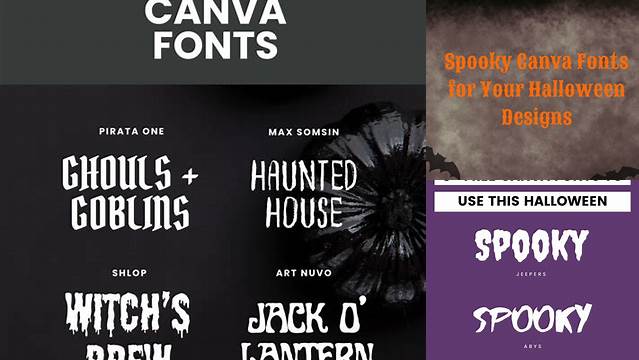
Canva's Spooky Fonts For A Hauntingly Good Design
Hey design enthusiasts! Ever wanted to give your projects that extra creepy, chilling, or downright terrifying vibe? Whether you're crafting Halloween invitations, designing spooky social media graphics, or just looking to add a touch of the macabre to your portfolio, finding the right fonts is key. And when it comes to easy-to-use design tools, Canva is a total game-changer. But can you really find scary looking fonts in Canva that will make your designs pop with fright? Absolutely! Let's dive into the ghoulishly good world of Canva's font library and uncover the perfect creepy typefaces to send shivers down your audience's spine.
Discovering the Eeriest Fonts in Canva's Library
So, you're on the hunt for those perfect, spine-chilling fonts within Canva. It's not always as straightforward as typing "scary" into the search bar, but trust me, the treasure trove is there if you know where to look. Canva has a massive font collection, and while many are standard and professional, there's a whole underbelly of fonts just waiting to be unleashed for your spooky creations. Think jagged edges, dripping ink effects, distorted characters, and unnaturally thin or bulbous forms. When you're browsing, keep an eye out for keywords that hint at the macabre, like "gothic," "horror," "distressed," "grunge," "handwritten" (especially if it looks shaky or uneven), or even specific holiday terms like "Halloween." Sometimes, a font that doesn't scream "scary" on its own can become terrifying with the right color palette, effects, and context. Don't be afraid to experiment! What might look playful at first glance could become sinister when placed on a dark, textured background with a subtle glow effect. The beauty of Canva is its accessibility; you can try out countless fonts without commitment. So, grab a coffee (or maybe a potion?) and start exploring. You'll be surprised at the sheer variety of scary looking fonts in Canva that can elevate your design from mundane to monstrous.
Unveiling "Creepy" Font Styles for Halloween Designs
When Halloween rolls around, or when you're aiming for that gothic aesthetic, the font choice becomes paramount. You want something that whispers tales of haunted mansions, lurking shadows, and ancient curses. Within Canva, there's a fantastic selection of fonts that perfectly embody this creepy essence. Look for styles that mimic old, weathered paper or the scratchy handwriting of a madman. Fonts with sharp, elongated serifs can give a sense of unease, as can those that appear broken or fragmented, as if they've survived a terrible ordeal. Think about the classic horror movie posters β they often utilize fonts that are bold, slightly off-kilter, and convey a sense of dread. Some fonts in Canva might have a "distressed" look, with textures that suggest age and decay, which is perfect for a vintage horror feel. Others might be more stylized, with exaggerated loops and swirls that can look elegant yet sinister, like a venomous serpent. Don't forget the power of a good "gothic" font; these often have a strong, dramatic flair that can be both sophisticated and spooky. When you're designing for Halloween, guys, you're not just choosing letters; you're choosing the voice of your terror. A well-selected creepy font can instantly set the mood, making your audience feel the fright before they even read the words. So, delve into Canva's vast library, try out those "gothic" and "distressed" options, and find the perfect voice for your next haunted masterpiece. Remember, the goal is to evoke emotion, and a great scary font is your most potent tool for doing just that. Itβs all about finding those scary looking fonts in Canva that speak to the darker side of design.
Exploring the Darker Side: Gothic and Horror Typefaces
Let's get real, sometimes you need more than just a little bit spooky; you need full-blown horror vibes. Canva actually has a decent selection of fonts that lean heavily into the gothic and horror genres, and they're perfect for making a statement. These aren't your everyday fonts; they're designed to be dramatic, unsettling, and memorable. Think about fonts that have a very strong, almost aggressive presence. They might be heavily stylized, with sharp angles, dramatic curves, or even elements that look like they're dripping or bleeding. Gothic fonts, in particular, often have a historical feel, reminiscent of ancient manuscripts or medieval architecture, which can lend a sense of timeless dread. When paired with the right imagery and colors, these fonts can transform a simple design into something truly menacing. For instance, a bold, blackletter-style gothic font against a blood-red background? Chef's kiss for horror! On the other hand, some horror fonts in Canva are more modern and abstract, playing with distortion and asymmetry to create a sense of unease. They might look warped, stretched, or fragmented, mimicking the visual chaos often associated with psychological horror. The key here is to embrace the dramatic. Don't shy away from fonts that are bold, unconventional, or even a little bit difficult to read at first glance β that can actually add to the creepy effect! When you're selecting these fonts, consider the overall mood you want to convey. Are you going for a classic haunted house feel, a slasher film vibe, or something more ethereal and ghostly? Canva's variety of scary looking fonts in Canva means you can find a typeface that perfectly matches your specific brand of terror. So, go ahead and explore those darker corners of the font library; you might just find the font that makes your design scream.
Finding Fonts with a "Distressed" or "Grunge" Aesthetic
Alright, guys, let's talk about texture, because sometimes, the scariest things aren't perfectly clean. A "distressed" or "grunge" aesthetic can add a layer of grit and decay to your designs, making them feel more authentic and, well, scarier. Canva has some fantastic fonts that nail this look. These fonts often appear worn out, scratched, or incomplete, as if they've been through a lot. Think about fonts that look like they've been printed on rough surfaces, or perhaps faded over time. This kind of texture adds a layer of realism and unease that a clean font just can't replicate. For example, a distressed font on a background that looks like old, ripped paper can be incredibly effective for creating a vintage horror poster or a mysterious artifact. Grunge fonts, specifically, tend to have a more raw, unpolished feel, often with rough edges and uneven strokes. They can evoke a sense of rebellion, chaos, or even post-apocalyptic dread, which is undeniably creepy. When you're searching in Canva, try using terms like "distressed," "grunge," "rough," "splatter," or even "textured." You might find that a font labeled as "industrial" or "urban" also has the perfect amount of grit you're looking for. The beauty of these fonts is their ability to add character and depth. They tell a story of wear and tear, of survival, and that can be genuinely unsettling. So, if you want your designs to feel more tangible and menacing, definitely explore the scary looking fonts in Canva that come with a built-in dose of grunge. They're perfect for adding that authentic, unsettling touch.
Utilizing "Handwritten" or "Brush" Fonts for a Personal Scare
Sometimes, the most unsettling designs feel personal, almost like a message scrawled in haste or desperation. That's where "handwritten" and "brush" fonts come into play, and Canva has some surprisingly creepy options in this category. When you think of handwritten, you might picture elegant script, but there's a whole other side to it β think shaky lines, uneven spacing, and letters that look like they were formed with trembling fingers. These fonts can evoke a sense of urgency, madness, or even a ghostly presence leaving a message behind. A font that looks like it was hastily scribbled with a pen can be perfect for notes from a haunted diary or a cryptic warning. Brush fonts, on the other hand, can range from bold and artistic to something more wild and chaotic. Some brush fonts have a very deliberate, artistic stroke, while others look like they were applied with a thick, messy brush, perhaps with ink splatters. This messiness can be incredibly effective for creating a raw, visceral feel. Imagine a title written in a bold, spattered brush font for a zombie apocalypse announcement, or a more delicate, shaky handwritten font for a spectral message. When you're searching in Canva, try looking for terms like "handwritten," "brush script," "marker," "scribble," or even "doodle." You might be surprised by the fonts that come up. The key to making these fonts scary is often in the context and the accompanying design elements. A handwritten font that might seem innocent on its own can become downright chilling when placed on a dark, textured background with a blood-red color. Guys, these fonts add a human (or perhaps, inhuman) element that can make your spooky designs feel even more personal and unnerving. They're a fantastic way to inject a unique brand of fear into your creations. So, don't underestimate the power of a good, creepy scribble; they are some of the best scary looking fonts in Canva for adding that personal touch of terror.
####### The "Distorted" and "Abstract" Fonts for Modern Horror
Moving beyond the classic spooky tropes, let's talk about fonts that play with perception and create unease through sheer visual disruption. "Distorted" and "abstract" fonts are your go-to for a more modern, psychological horror vibe, and Canva has some surprisingly effective options. These fonts often break the conventional rules of typography, bending, stretching, or fragmenting letters in ways that can be deeply unsettling. Think about fonts that look like they're melting, warping, or glitching. They can evoke a sense of unreality, technological breakdown, or even a mind unraveling. For example, a font that appears to be digitally distorted or pixelated could be perfect for a sci-fi horror theme or a story about corrupted data. Conversely, fonts that are abstract and highly stylized, with unusual shapes and unconventional letterforms, can be disorienting and captivating. They might not immediately look like letters, forcing the viewer to work harder to decipher them, which can build suspense. When you're browsing Canva, search for terms like "distorted," "glitch," "experimental," "abstract," or "modern." You might also find that some "tech" or "futuristic" fonts, when used in the right context, can take on a sinister quality. The real power of these fonts lies in their ability to create a sense of unease and unpredictability. They don't rely on traditional scary imagery but rather on a fundamental disruption of visual norms. Guys, these are the fonts that make your audience question what they're seeing, and that's a powerful tool for creating a truly memorable and terrifying experience. So, if you're aiming for a cutting-edge, mind-bending scare, dive into Canva's collection of scary looking fonts in Canva that push the boundaries of typography.
######## Creating Atmosphere with "Themed" Canva Fonts
Canva isn't just about random fonts; they often categorize them or offer them as part of specific design kits, making it easier to find those perfect scary looking fonts in Canva for your themed projects. When you're working on a particular holiday like Halloween, or a specific genre like fantasy or sci-fi horror, looking for themed font collections can be a real time-saver and a source of inspiration. These themed fonts are often designed with a specific aesthetic in mind, ensuring they complement other design elements within that theme. For example, a "haunted house" font might have decorative elements that evoke cobwebs or old-fashioned signage, while a "zombie" font could feature a decaying or grotesque appearance. Sometimes, these themed fonts are part of Canva Pro elements, but there are usually free alternatives that are just as effective. The trick is to know how to search effectively. Beyond just typing